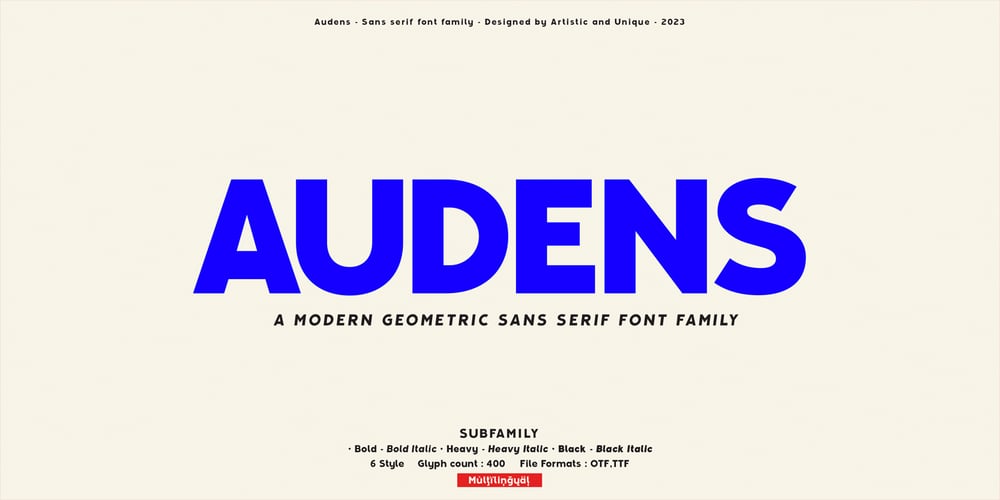
Audens Font Family was designed by Osman Taner Kucukgenc and published by Artisticandunique. Audens contains 6 styles and family package options. Audens – Sans Serif Font Family – Multilingual supports – 6 StylesAudens is a modern geometric sans serif font. Consisting of 6 styles designed for strong headlines, this font is suitable for use in different areas, from banners and posters, newspapers and magazines, logos and brand identities, to movie and game titles.If you are looking for a modern – geometric sans serif style that can be effective in branding, you can easily use this font.Whit these features, it will be effective in creating alternatives in your projectsIdeal for posters, newspaper, movie title and magazines, magazine covers, editorials, headlines, websites, logos, branding, advertising and more.You can create your unique designs with this font.If you have a question, please contact me.Have a good time.